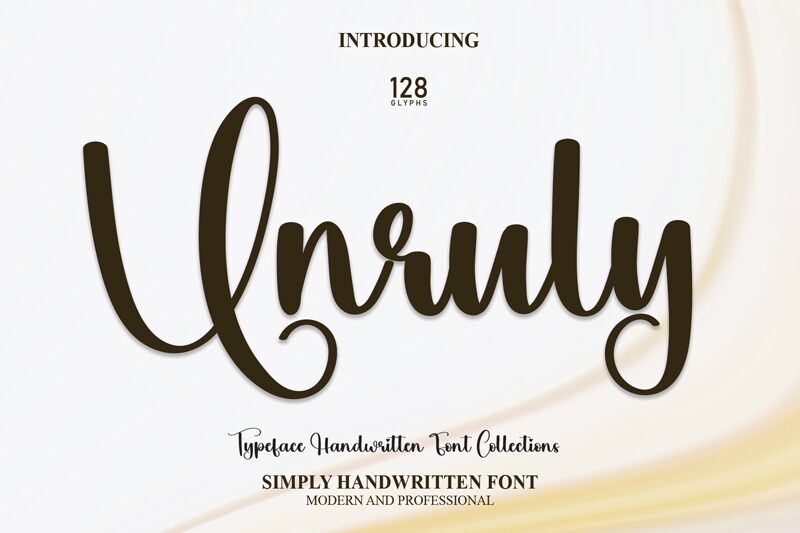
Unruly
Unruly, designed by scratchones, is a captivating calligraphy font that adds an artistic touch to any project. With its semi-light weight, Unruly exudes elegance and grace, making it perfect for wedding invitations, feminine branding, or high-end fashion magazines. Its delicate strokes and flowing curves create a sense of sophistication that will elevate your designs. Whether you're working on a romantic love letter or a luxurious logo, Unruly's calligraphic style brings beauty and charm to every project. Stand out from the crowd and let Unruly leave an unforgettable impression.
the latest style letters are perfect for wall displays, wedding invitations, social media post logos, advertisements, product packaging, product designs, labels, photography, watermarks, invitations, stationery, and any project that requires taste handwriting.